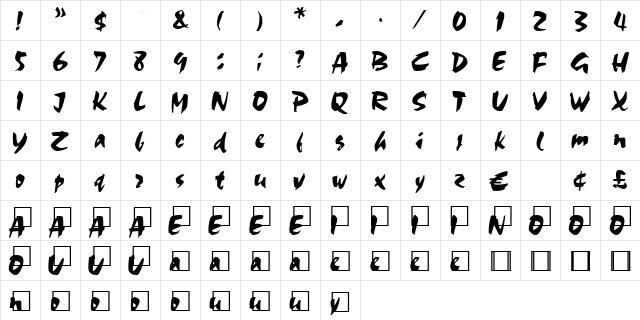
Acapulco Regular
Design Context for Acapulco Typeface
Acapulco is a composed and adaptable typeface that performs quietly and consistently across a wide range of design contexts.